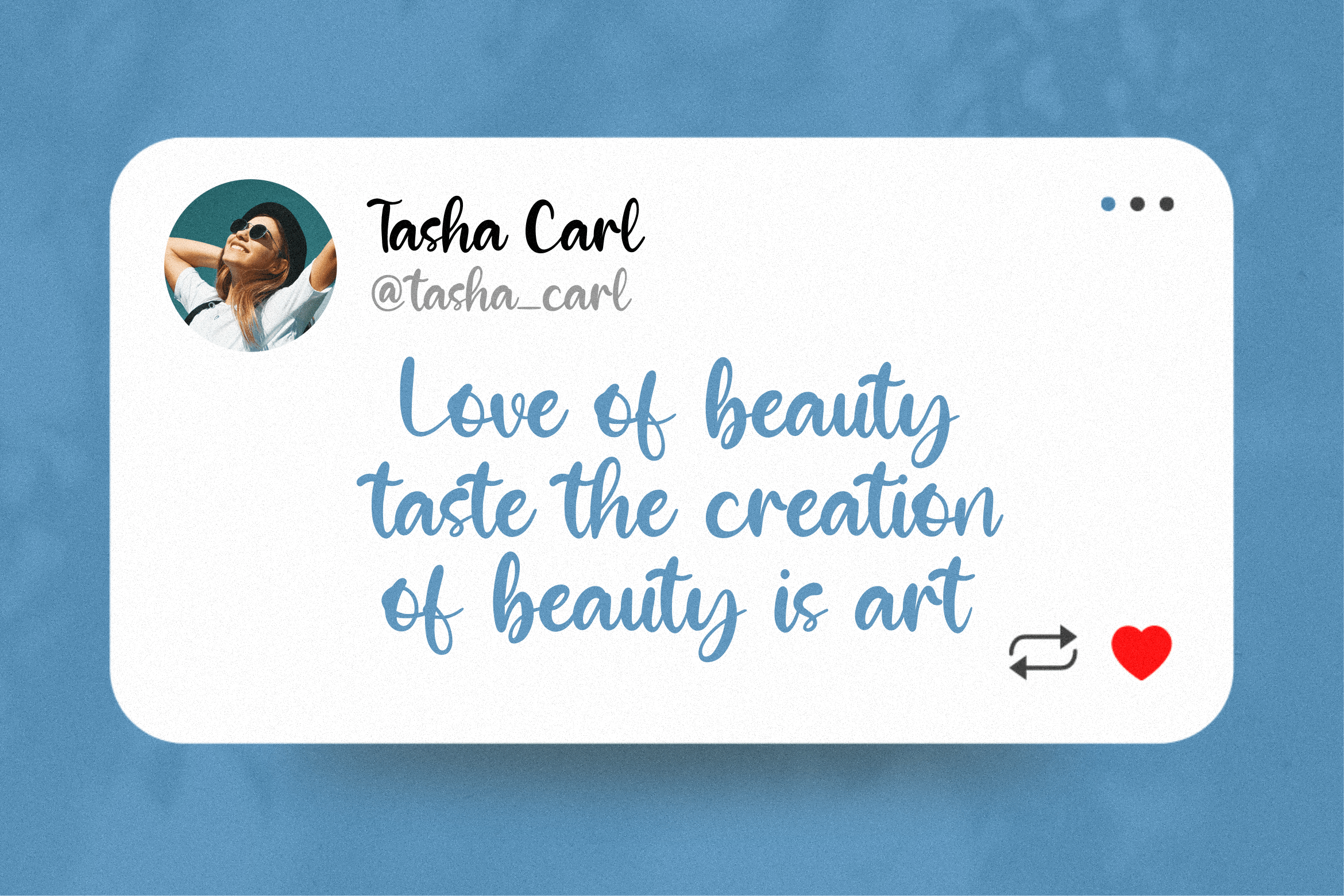
Blue Elfira Script Font
It’s a gorgeous handwritten font perfect for product packaging, branding project, magazines, social media posts, wedding invitations, or you can use it to express yourself with beautifully handwritten words!